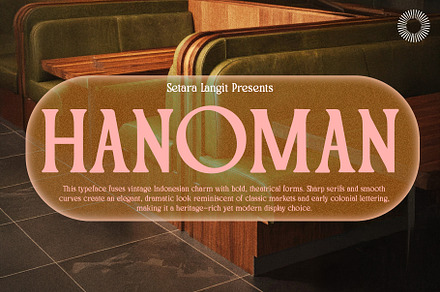
Hanoman – Serif Font Family
A serif family with an unusual construction, drawing on non-Latin calligraphic influence in its stroke terminals and proportion.
Bringing outside influence into a Latin serif produces letterforms that feel unfamiliar without being illegible, which is a difficult balance.
• Brand identity and packaging
• Editorial and book design
• Cultural and hospitality branding
• Display and headline use